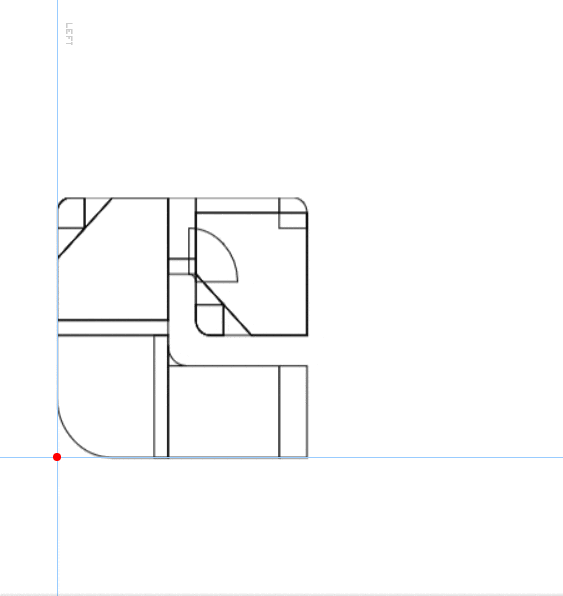
• RINKEL — Bold constructivist display design
This was very much influenced by the rare sighting of
1974's Lettergraphics International typeface by the name 'Belden'
Belden was shown in a Lettergraphics ad in U&lc vol. 1, no. 3 from 1974, without further design credits. It was also featured in the book cover design for "Metaphysics: An Introduction" by Keith Campbell.
—Which in terms I have used for my personal extrapolation of the complete character set of this FontStruction.
Not a digitizing revival of the original piece, but rather a very strongly inspired personal take on it.
More complete character set is coming soon..
Let me know what u fellow structivists think of it so far!
Very nice! (although I keep reading |n| as |a| in the texts)
@riccard0: I have the same, but that is only the case in smaller text size.. something it wasn't meant for, I will try to come with a better solution next update!
In case anyone is interrested,
here is the image I've used to source the main basic concept from.
Yeah, well perhaps this remains a critical troulbled situation, I can't think of any suitable solution atm that also remains faithful to whatever is already there. The form it currently has, was taken straight from the source referance. And to my humble opinion I believe that is the one version reflecting the fonts stylish approach best.
I don't feel like there is a whole lot of optional directions to explore when rethinking this lowercase 'n' design. I want to avoid diving head first into the much more boring looking 'piano-key' character design for this font. Neither do I think a 'Josef Alberts' bauhaus stencil style approach works well here, which still is somewhat leaning to much in the direction of the 'piano-key' characteristics.
I keep it as is for now!
I hear you: a |n| modeled after the |h| would somewhat dilute the uniqueness of the design. Belden has the advantage of narrower proportions, but it doesn't always help (that |c| reads as an |e|, as you took advantage of ;-)
What seems most judiciously to me, and in in fact probably the only true suitable fix to the whole Lc 'n' readability issue is to slightly raise the glyph overall x-heights. But this than also requires the cap-height to be raised in response, triggering the need to vertically redistribute all 3 divisions of the glyphs. This in order to maintain the same exact and constant negative whitespace gap of 0.5 grid units. Just take a closer look at the glyph for number '2'.. and looking at the negative spaces, now compare these with other glyphs, or with the font's overall character-spacing (all locked at a faithful 0.5). But what I try to point out here is "That one could notice with '2' something not quite sits right, and tell that measures are ofset, slightly more open as they should. I still need to fix this, but for now it provided a textbook example for "How not to!".
And from what I can tell by inspecting the original source reference image, this whitespace-distribution feature was included and hard-coded into the design parameters itself. And ONLY unless the entire recalculated distribution of the size-to-grid ratio for the font was taking in prior concideration, AND executed in respose after, making any changes to this more or less 'caked-in' preset-preference, will simply results in the font being displayed incorrectly.
So doing that is basically the only truly justifiable way of doing it, but also the most bulky, unterruptive and least fun to do way.. argh
As a way to show my appreciation I corrected Z, 2, 3 and 5 ?
The { is beautiful. Wow.